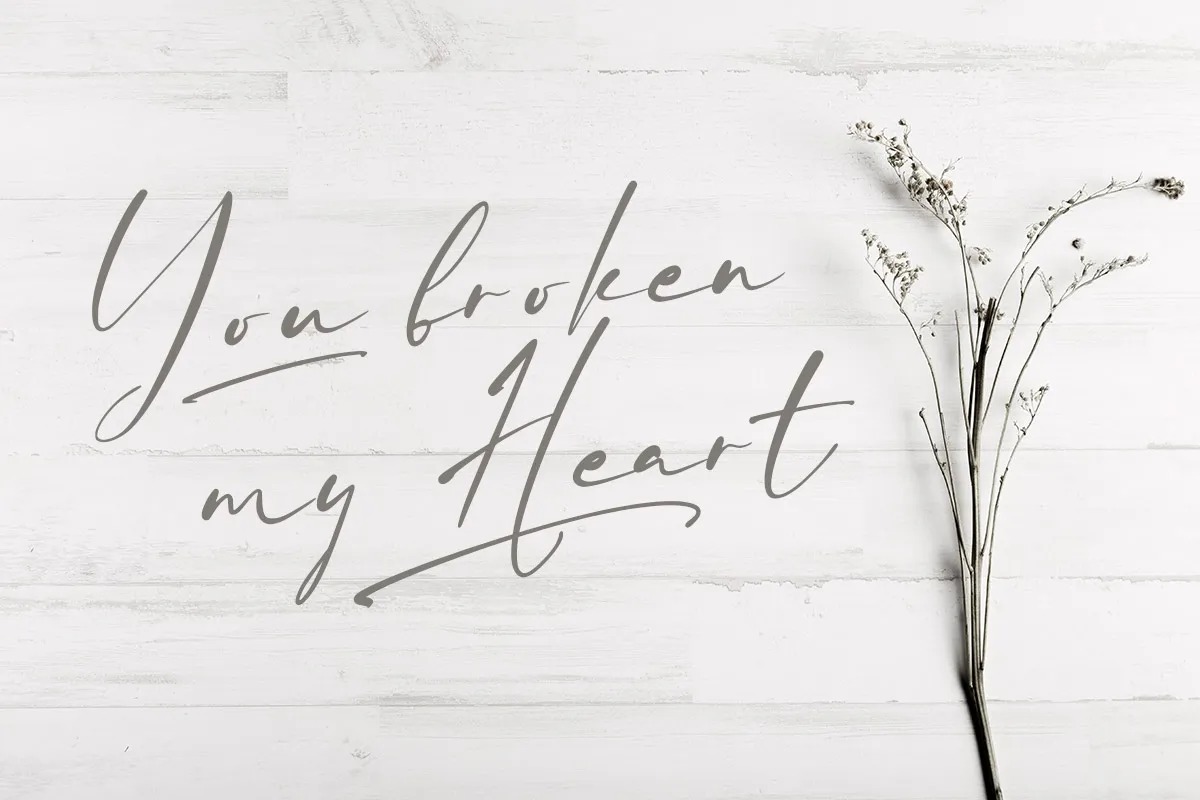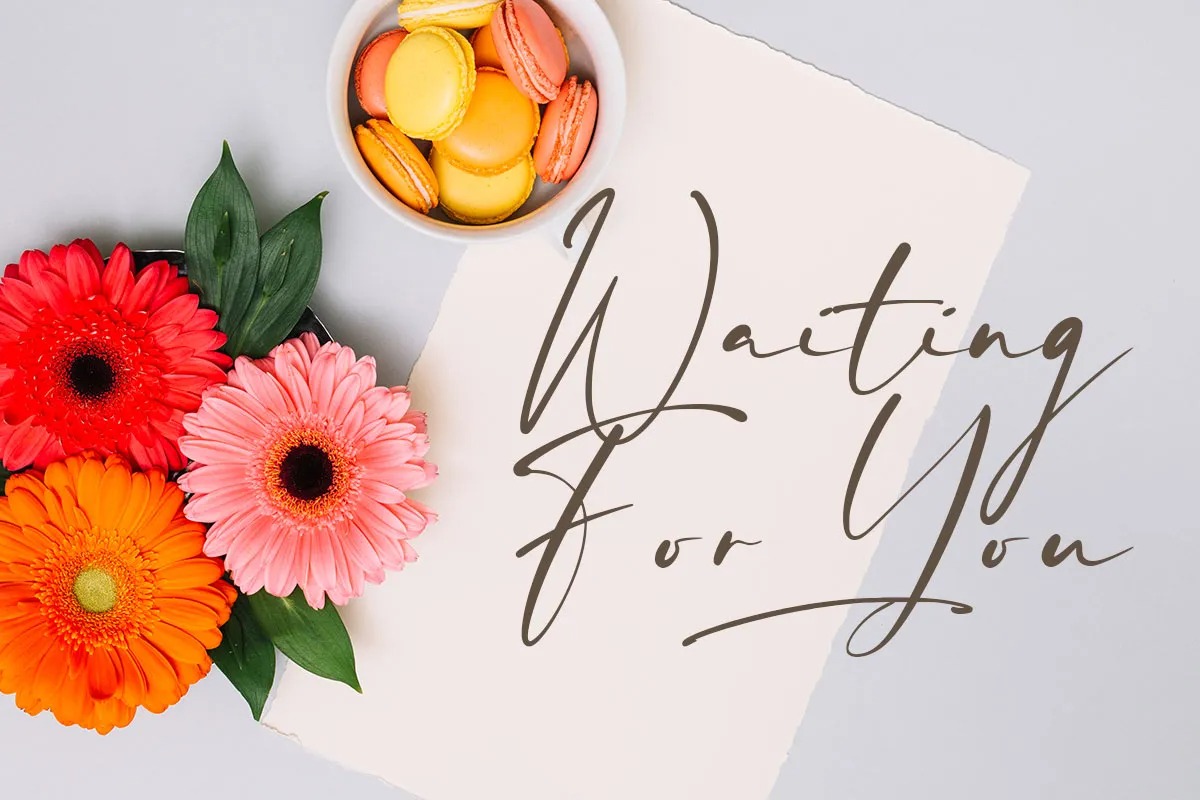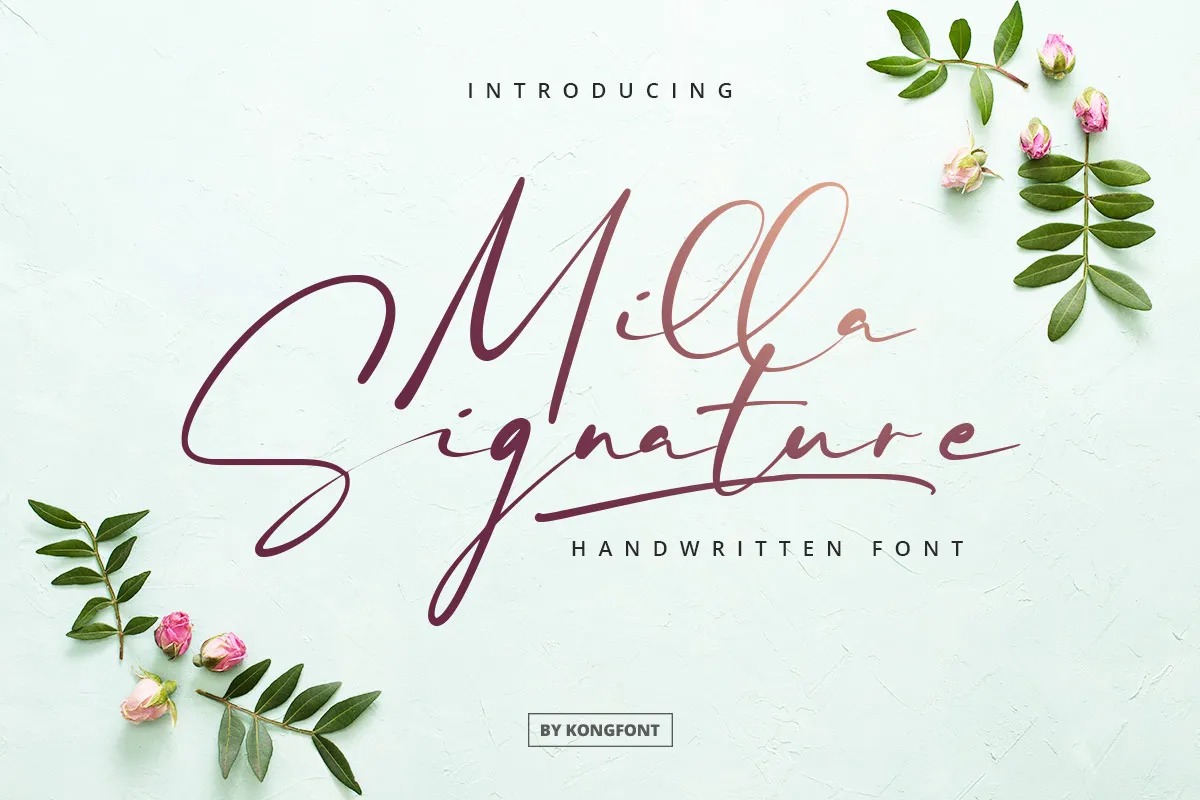
Milla Signature Font
If you’re looking for a signature typeface to attract your audiences or customers then we’ve got the font for you! Milla is ​​a stylish and very elegant handwritten font suitable for creating attractive logos, branding, and quotes. Each letter has a unique and beautiful touch, perfect for designs that require an elegant and beautiful appearance.